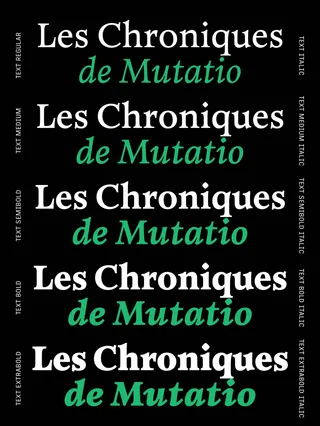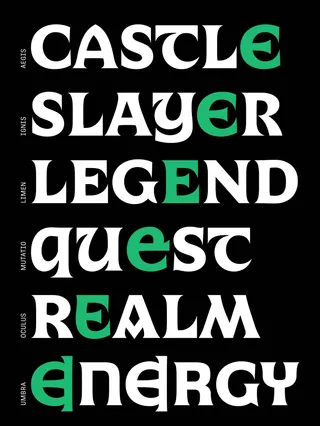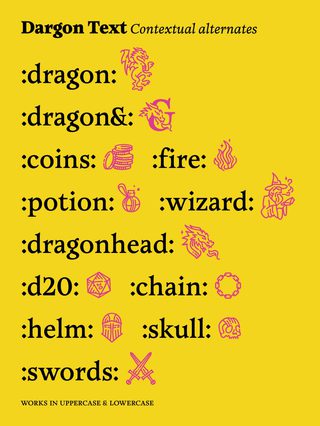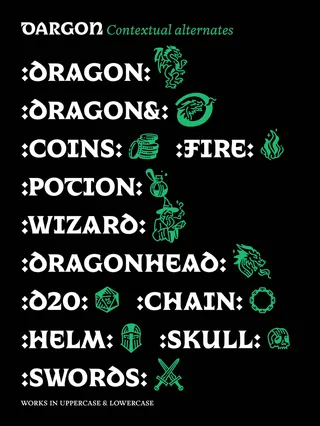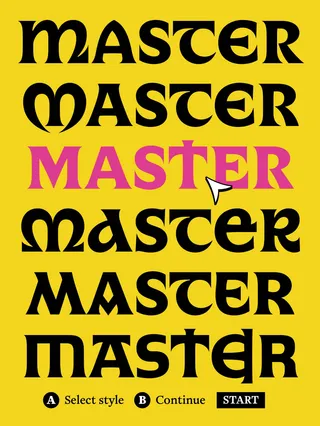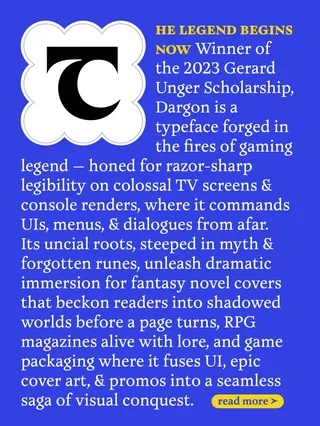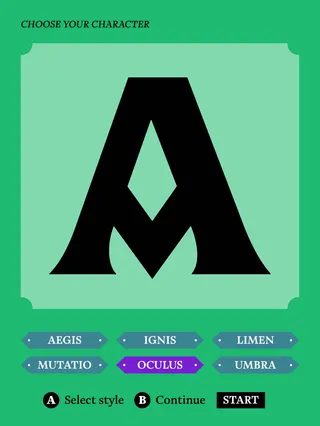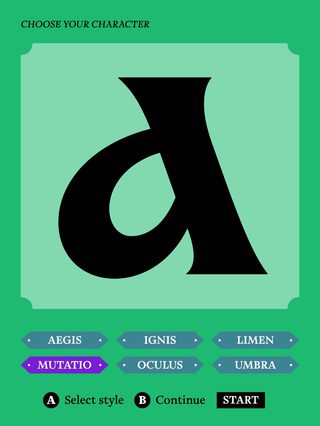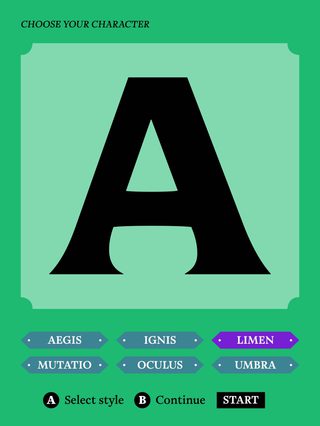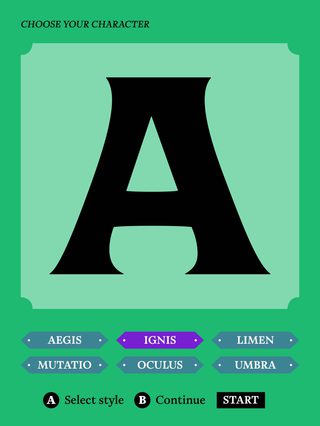
With Dargon, the magic is in you
Borne of pure fantasy, Dargon will prove to be a faithful and artful companion on any quest you set out on.
TypeTogether is proud to announce the release of Dargon, the first type family by Anne-Dauphine Borione, “Ando”, which was inspired by fantasy role-playing games but proves to be audaciously useful in a wide variety of contexts, from videogame UIs to printed cards to book covers. With five text weights and italics, as well as six uncial display fonts – each named after magic spells – Dargon’s charm lies in the meticulous research and deep understanding of the contexts where it can be used, like video game UIs, card game designs, and book and magazine covers.
Winner of the 2024 Gerard Unger Scholarship, Dargon comes from a place of deep understanding and respect for gaming and fantasy culture. Its three year design process involved extensive research into the letterforms and calligraphy of the Dark Ages, and focused specifically on uncial letterforms used between the 4th and 8th centuries. The process also led to the creation of Dargon Text, five weights of serif type with italics that evoke a more enlightened time, but one that still holds magic and beauty.
One of the first use cases for Dargon was in the design of role-playing game cards, where an incredible amount of information has to be conveyed in a very compact space while still conveying a swords-and-sorcery aesthetic. This challenge proved to be incredibly useful in other contexts as well, as Dargon is unbelievably practical in videogame UIs. Its text weights prove useful even for longer texts, while still being careful not to break the spells the storytellers are casting.
Dargon walks between two worlds typographically with its display and text parts – five text and italic styles, and six uncial display fonts. Dargon comes with a total of 16 styles, support for more than 200 Latin-based languages, and a variable font format for the text subfamily.